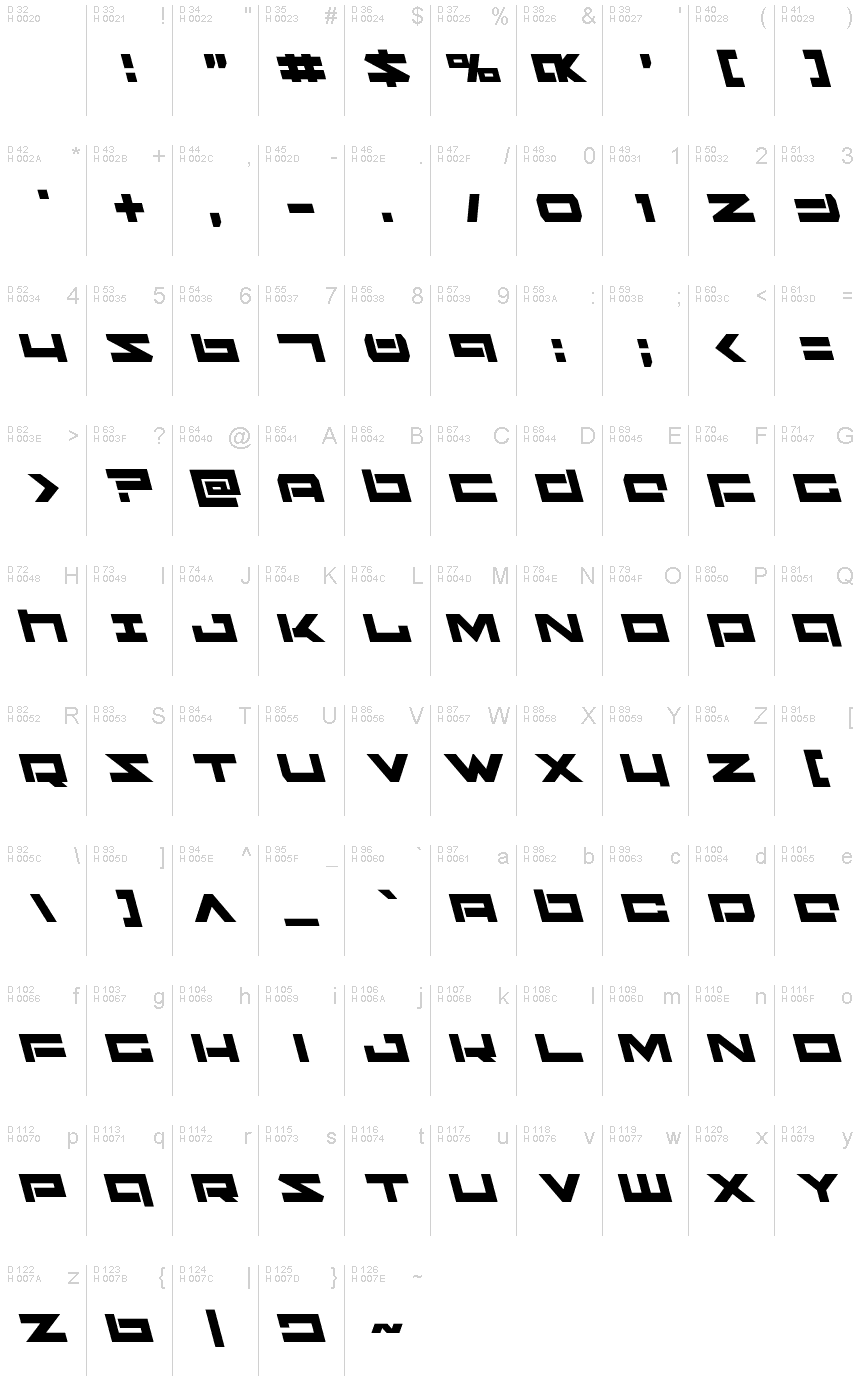
Ninjabot Leftalic
Ninjabot Leftalic, a bold and extra-expanded display font from the Ninjabot family by Iconian Fonts, is perfect for projects that require a futuristic and cutting-edge vibe.
With its techno style and unique design, this font adds a touch of modernity to any creative endeavor. Use it for branding materials, movie titles, video game interfaces, or music album covers to make a bold statement. Ninjabot Leftalic will captivate your audience with its dynamic and striking appearance.
Let your imagination run wild as you explore the limitless possibilities of this captivating typeface.
With its techno style and unique design, this font adds a touch of modernity to any creative endeavor. Use it for branding materials, movie titles, video game interfaces, or music album covers to make a bold statement. Ninjabot Leftalic will captivate your audience with its dynamic and striking appearance.
Let your imagination run wild as you explore the limitless possibilities of this captivating typeface.